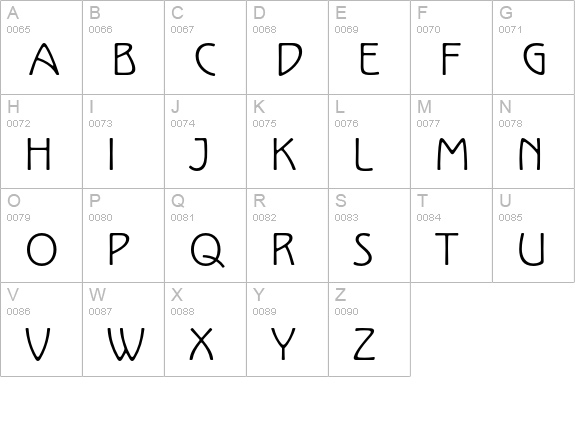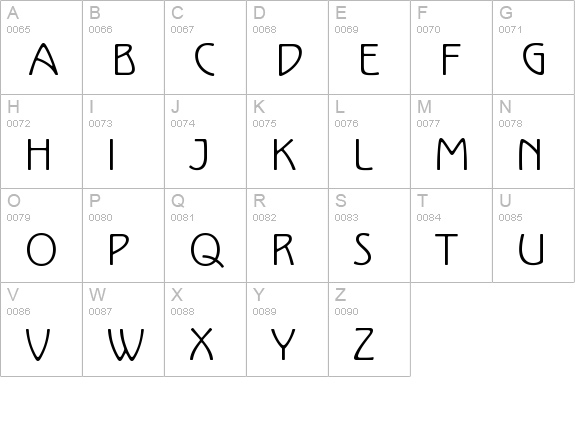
Kolo LP Regular is the standard, neutral variant in the Kolo typeface family \xE2\x80\x94 well suited to general body text, paragraphs, and standard typographic work.
Kolo LP Regular font is a modern and versatile typeface that strikes the perfect balance between elegance and readability. With its clean lines and classic design, this font is ideal for a wide range of projects, from branding to editorial design. Its timeless appeal makes it a popular choice for both print and digital applications. The best part about Kolo LP Regular font is that it is available for free download at FontsMarket.com. Now you can access this high-quality font without any cost, making it a valuable addition to your font library. Whether you're a professional designer or a hobbyist looking to elevate your projects, Kolo LP Regular font is a must-have resource that you can easily acquire. Don't miss out on this opportunity to enhance your creative work with this exceptional font.